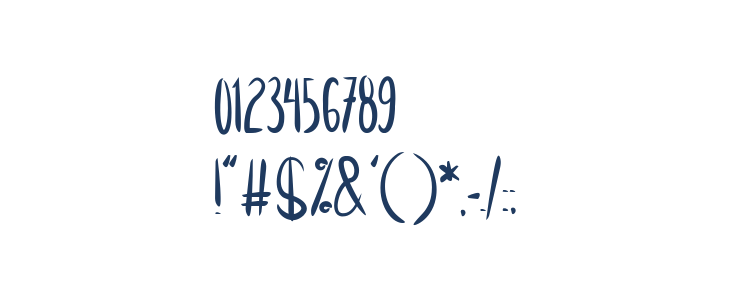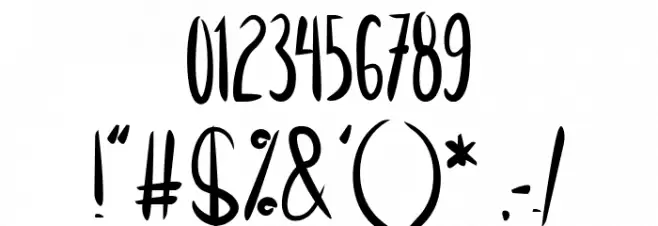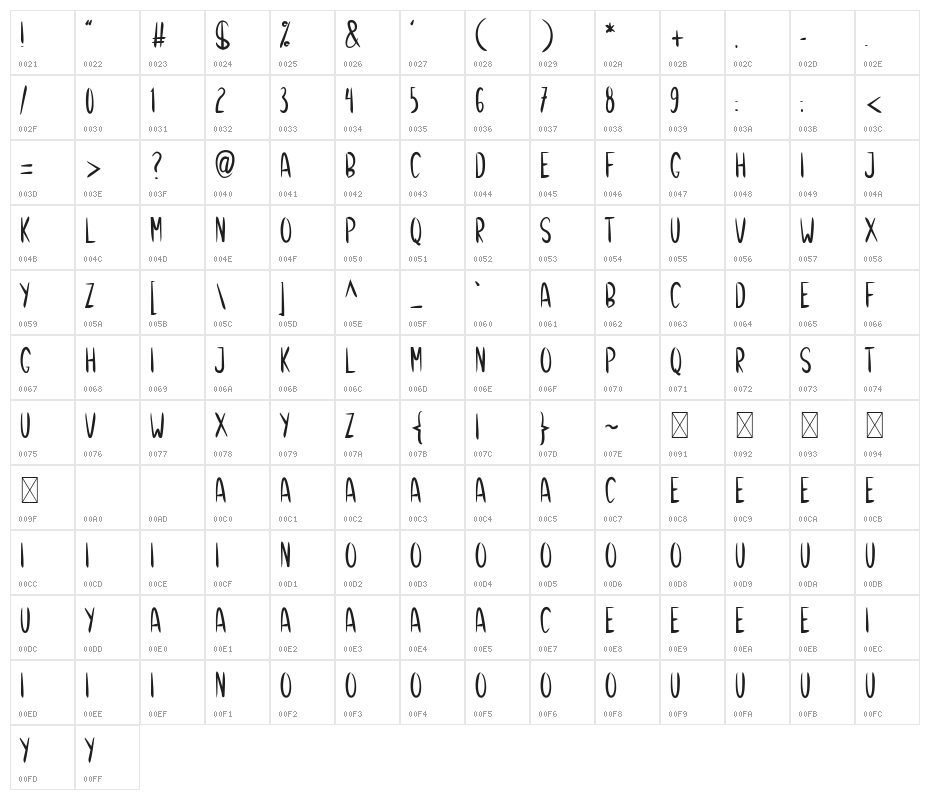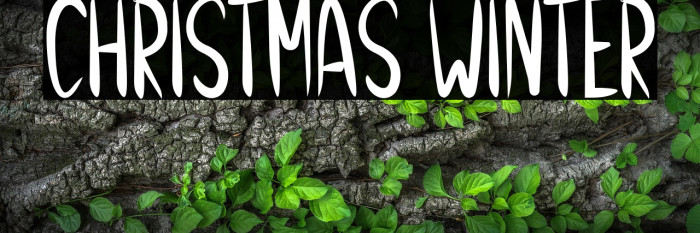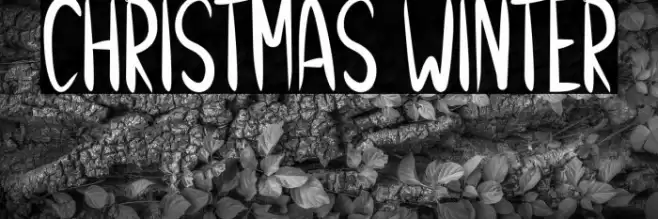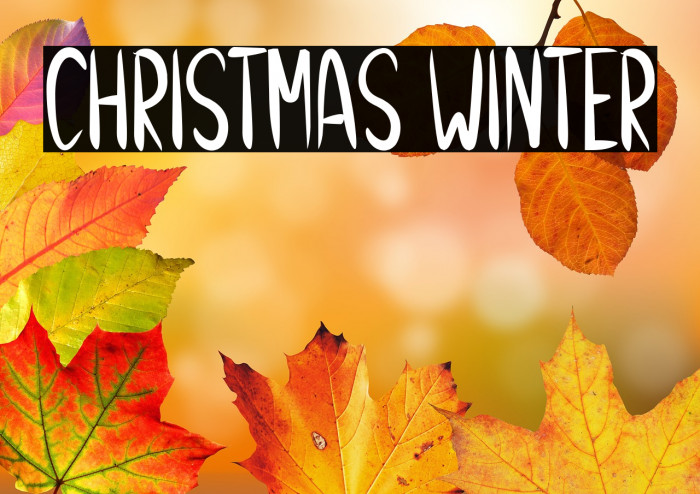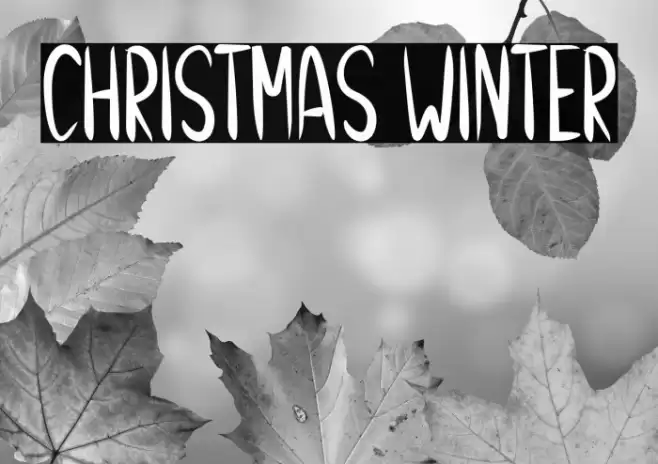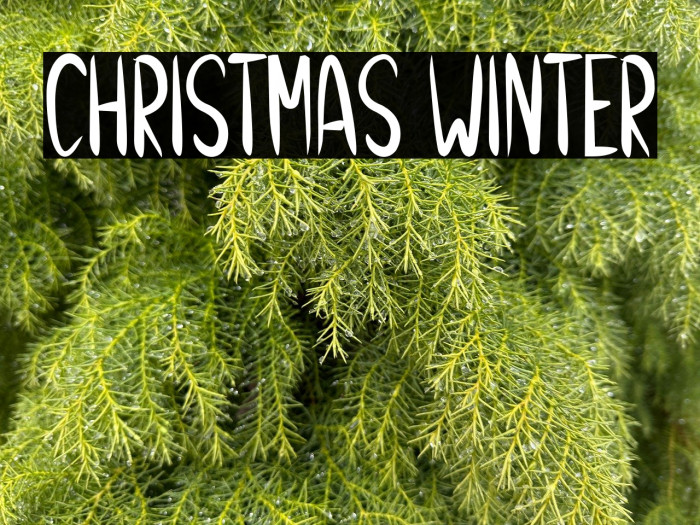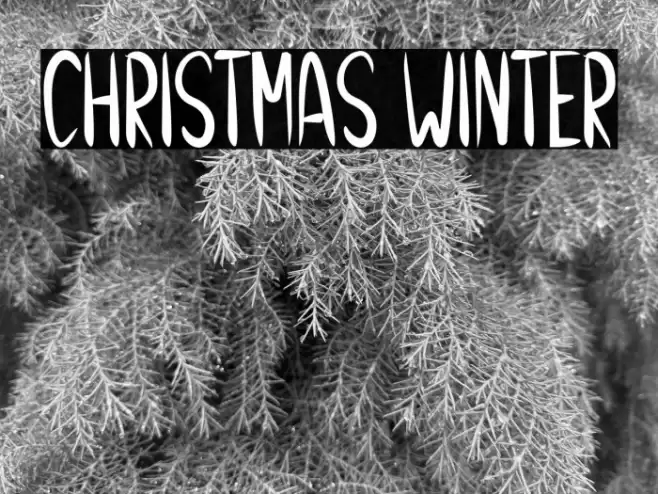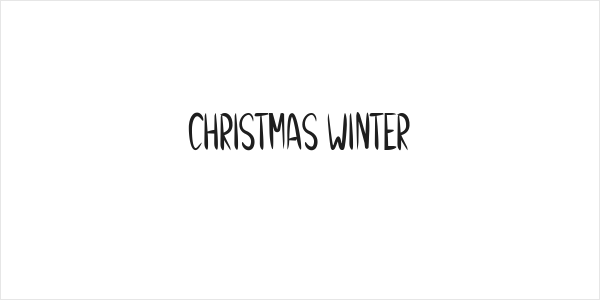
Christmas Winter Font
Christmas Winter Description
This font features a playful and whimsical style, characterized by its tall, narrow letters with a slight slant, giving it a dynamic and lively appearance. The strokes are uneven, adding a hand-drawn feel that enhances its charm. The uppercase and lowercase letters maintain a consistent style, while the numbers and special characters complement the overall aesthetic. This font's unique personality makes it suitable for festive and creative projects, capturing a sense of fun and spontaneity.
Overall StyleWhimsical, Playful
Use CaseHeadlines, Logos, Invitations
Proposed ProjectsIdeal for holiday cards, festive invitations, playful branding, and children's book covers.